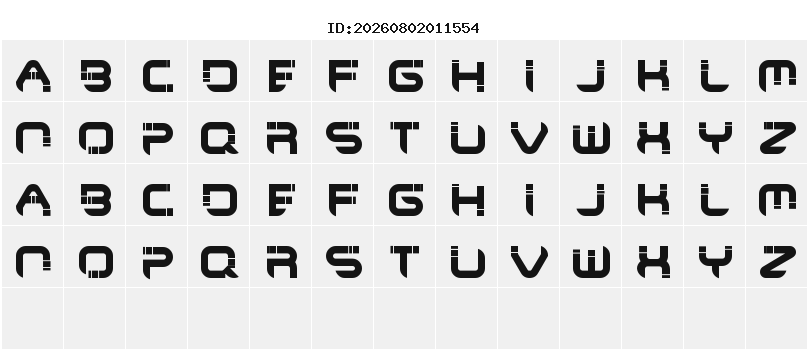
Maya Culpa.ttf is a modern, elegant sans-serif font designed for ultimate readability and visual harmony. Perfect for branding, headlines, web design, and print materials.